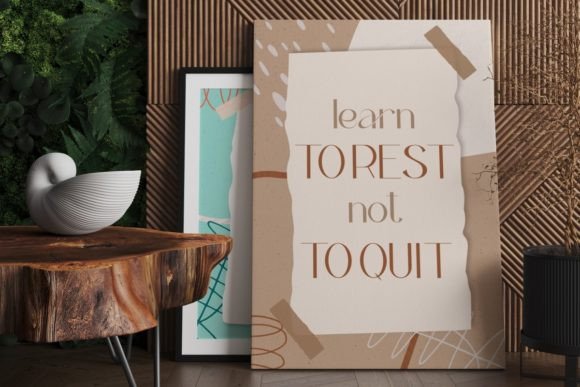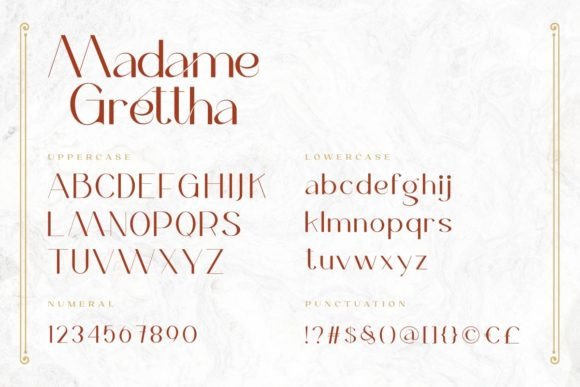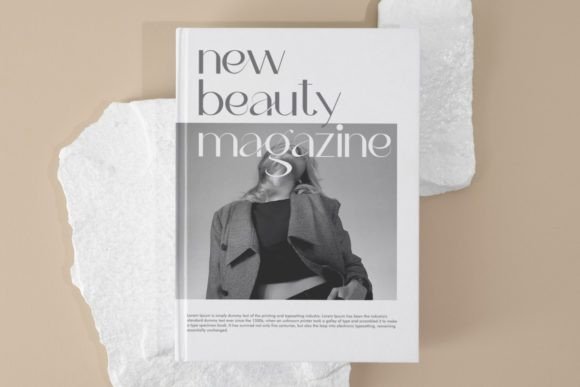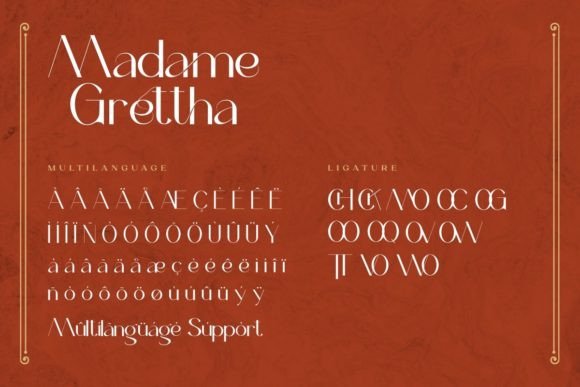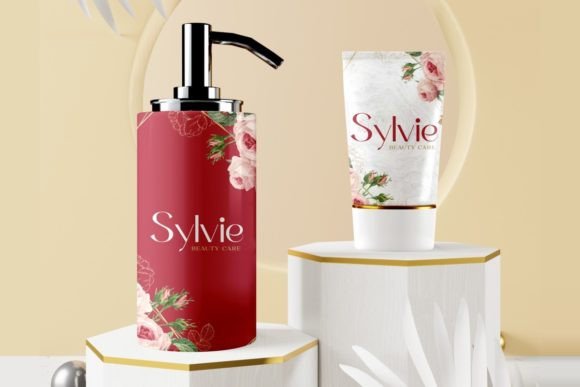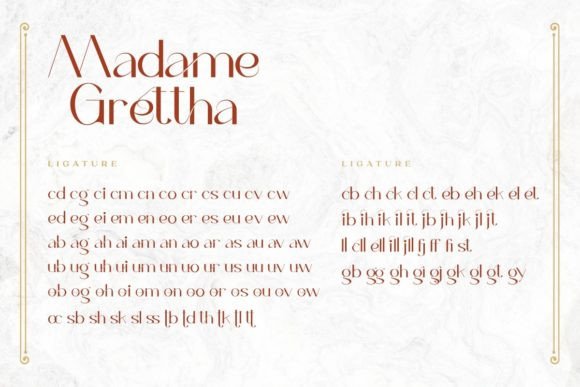
Introduction to Madame Grettha Font
Have you ever been stuck on a creative project, staring at a blank page, searching for the perfect font to bring your vision to life? That’s exactly where I was when I stumbled upon the enchanting Madame Grettha Font. Its unique, elegant design immediately caught my attention, and I knew I had to share it with fellow designers and creatives.
As a go-to design resource, Madame Grettha Font is a high-quality addition to any project. Its versatility makes it perfect for a wide range of applications, from business cards and luxury products to magazine design and movie titles. What sets it apart, however, is its ability to elevate even the most mundane designs into something truly special.
Key Features of Madame Grettha Font
- Designed with a sophisticated and luxurious feel, perfect for high-end branding, invitations, and other creative projects.
- Unique characteristics include intricate details and ornate flourishes, adding a touch of sophistication to any design.
Honest Review: Madame Grettha Font
I recently stumbled upon the Madame Grettha Font and was eager to dive in and see what it had to offer. As a designer, I’m always on the lookout for high-quality design resources that can elevate my creative projects.
One of the things that immediately caught my attention was the clean and elegant aesthetic of this font. The transparent background and sleek design make it a great addition to any project. ✨
The font is perfect for creating visually appealing headings and titles, and its versatility makes it suitable for a wide range of design applications. I was able to use it effectively in a recent branding project, and the results were stunning.
Some of the key features of the Madame Grettha Font include:
⚠️ One potential limitation of this font is that it may not be suitable for projects that require a bold or edgy look. However, for most design applications, the Madame Grettha Font is an excellent choice.
Getting the Most Out of Madame Grettha Font
To get the most out of Madame Grettha Font, use it in combination with other design elements, such as graphics, images, and colors. Experiment with different font sizes, styles, and colors to create a unique and visually appealing design.
Madame Grettha Font is ideal for various creative projects, including:
- Posters and advertisements